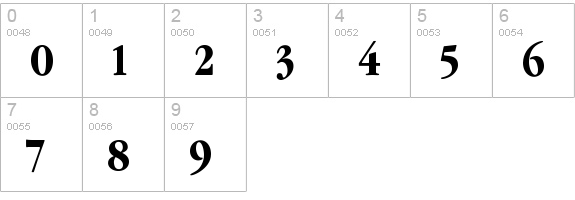
GaramondCondBold Font Details
GaramondCondBold is a stunning and versatile font that exudes elegance and sophistication. With its bold and confident letterforms, this font is perfect for making a bold statement in any design project. Whether you're creating a striking logo, designing a captivating poster, or crafting a professional-looking website, GaramondCondBold will effortlessly elevate your typography. The clean and sharp lines of GaramondCondBold create a visually pleasing aesthetic that is pleasing to the eye. The carefully crafted letterforms ensure legibility and readability, making it an excellent choice for both headlines and body text. This font strikes the perfect balance between classic and contemporary, making it suitable for a wide range of design styles. What sets GaramondCondBold apart is its availability as a free download on FontsMarket.com. That's right, you can freely access this remarkable font and bring your creative vision to life without any cost. FontsMarket.com is a trusted source for high-quality fonts, and GaramondCondBold is just one of the many exceptional options available. So, why wait? Download GaramondCondBold now from FontsMarket.com and unlock a world of possibilities for your design projects. Whether you're a professional designer or someone with a passion for creativity, GaramondCondBold will undoubtedly become an invaluable asset in your typographic arsenal. Create stunning visuals, captivate your audience, and make a lasting impression with this freely available font.